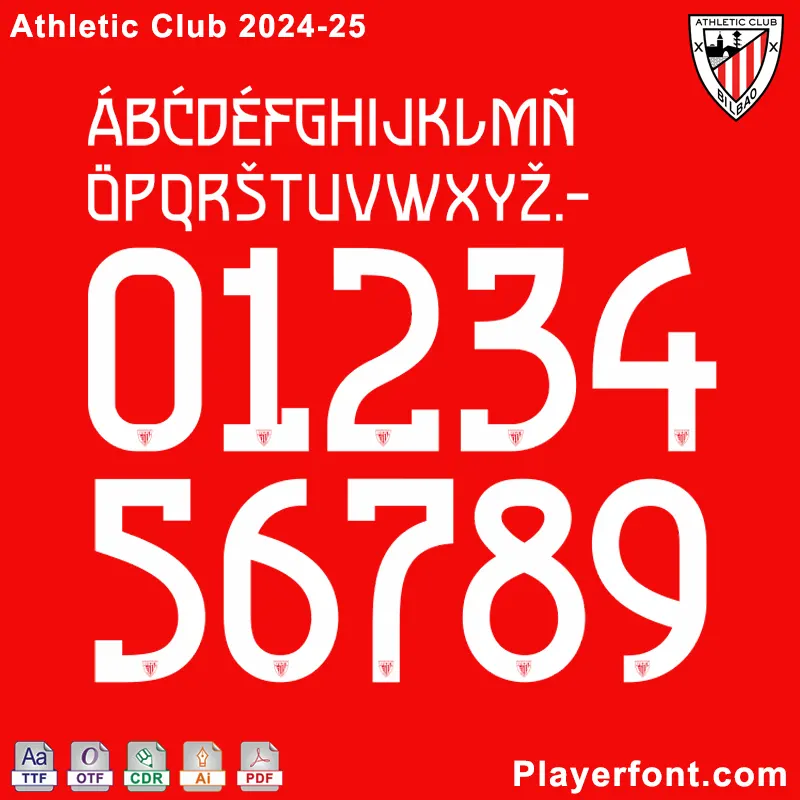
The Athletic Club 2024/2025 Europa League vector font is based on the official name set, with the Athletic Club Bilbao logo at the bottom of the number. Can be used custom Athletic Bilbao 2024-2025 jersey name set.